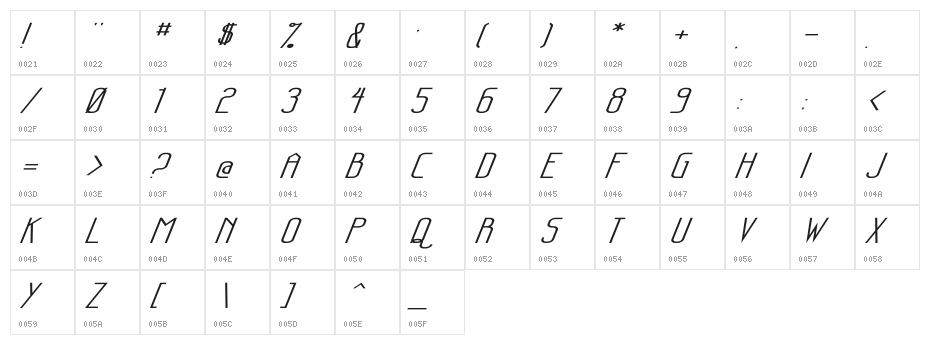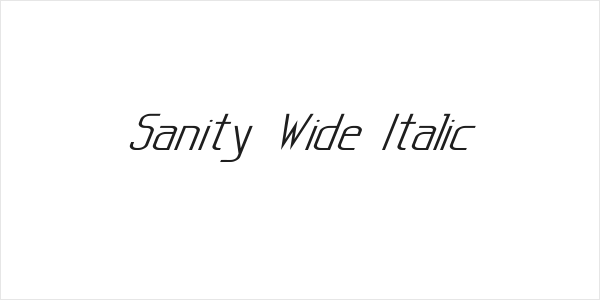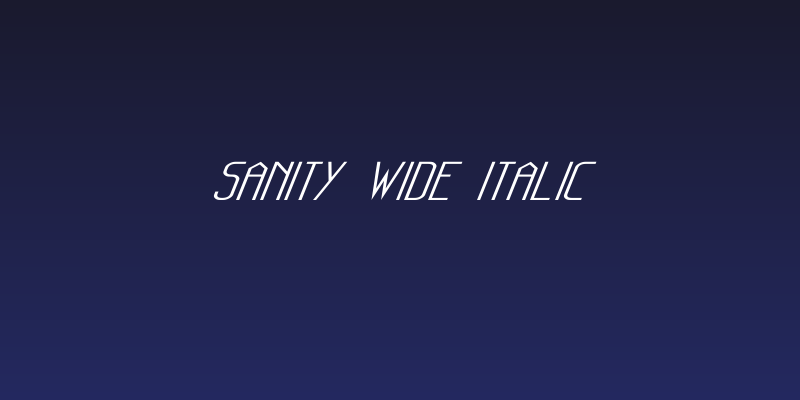
Sanity Wide Italic Font
Sanity Wide Italic Description
This font features a sleek, modern design with a distinct italic slant, giving it a dynamic and forward-moving appearance. The characters are elongated and slightly condensed, creating a sense of speed and efficiency. The strokes are consistent in width, offering a uniform look across all characters. The uppercase letters are tall and commanding, while the lowercase letters maintain a balanced and harmonious flow. Numbers and special characters are designed to complement the overall style, ensuring readability and aesthetic appeal. This font is ideal for projects that require a contemporary and professional touch.